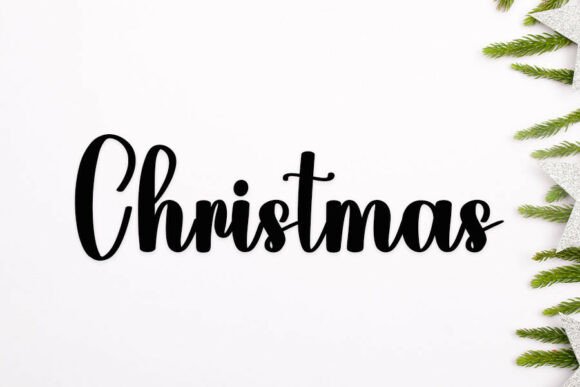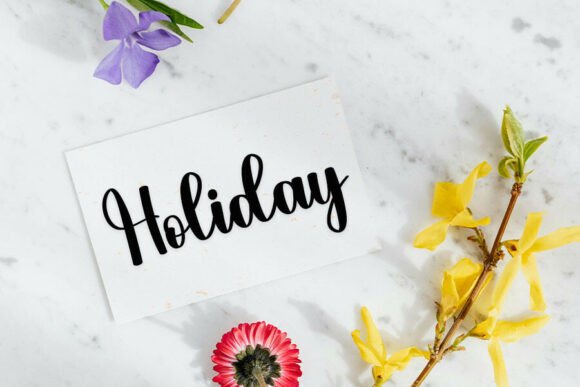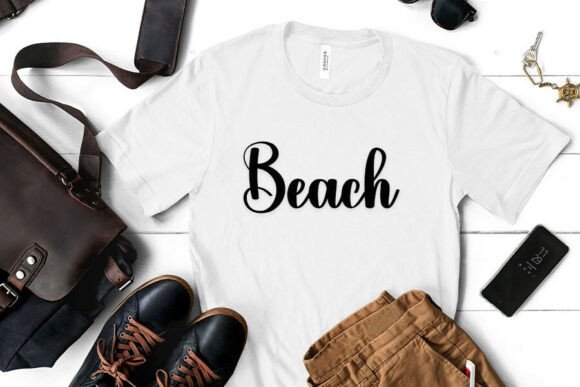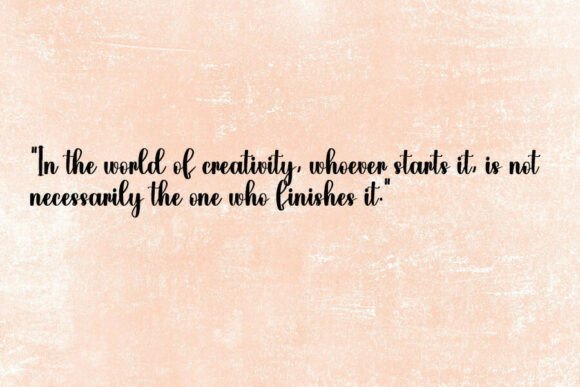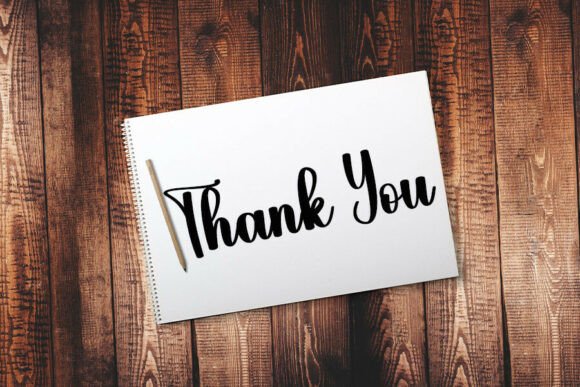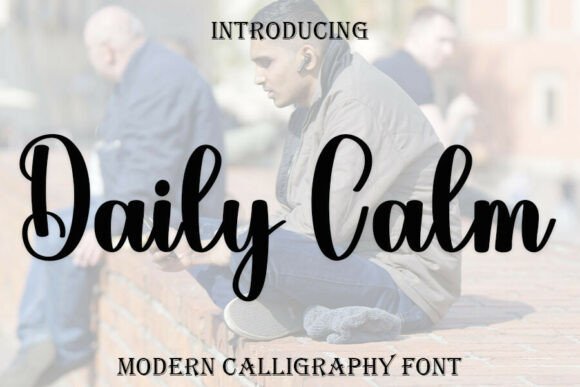
Introducing Daily Calm Font: Elevate Your Design with Elegant Calligraphy
In the world of typography, few fonts manage to strike a balance between traditional elegance and modern flair. Daily Calm, a beautiful high-contrast calligraphy font, is one such exceptional find. This stunning font combines the sophistication of classic script with a lively, upbeat rhythm, making it an ideal choice for designers and crafters looking to infuse their projects with a touch of artisanal charm.
The Essence of Daily Calm
Daily Calm is more than just a font; it’s a design statement. Its high-contrast calligraphy style gives it a distinctive look that is both elegant and eye-catching. The font’s traditional script elements evoke a sense of timelessness and sophistication, while its contemporary rhythm adds a fresh, modern twist. This blend of old and new makes Daily Calm versatile and suitable for a wide range of design applications.
Ideal Applications for Daily Calm
Given its unique characteristics, Daily Calm is perfectly suited for projects that require a blend of elegance, warmth, and inspiration. Some of the ideal applications for this beautiful font include:
- Holistic Branding: For businesses focused on wellness, yoga, meditation, or organic products, Daily Calm offers a typographic solution that resonates with their brand ethos.
- Inspirational Quotes: The font’s uplifting and elegant style makes it perfect for presenting motivational quotes on social media, posters, or digital platforms.
- Social Media Headers: Stand out on social media with Daily Calm used in headers or titles. Its contemporary rhythm ensures your content grabs attention.
- Lifestyle Product Packaging: For boutique skincare lines, artisanal food products, or any lifestyle goods that emphasize natural, organic qualities, Daily Calm adds a sophisticated touch to packaging designs.
Designing with Daily Calm
When designing for projects such as a meditation app, a yoga studio, or a boutique skincare line, the typography plays a crucial role in setting the tone and conveying the brand’s message. Daily Calm excels in these scenarios by adding a layer of artisanal grace and organic warmth to your typography. Here are some tips for making the most of Daily Calm in your designs:
- Pair with Simplicity: Let Daily Calm be the focal point by pairing it with simple, clean fonts for body text or supplementary information.
- Play with Colors: Enhance the font’s elegance with a thoughtful color palette. Earth tones, soft pastels, or rich jewel tones can complement Daily Calm beautifully.
- Experiment with Ligatures: Take advantage of the font’s ligatures and swashes to add a personal touch to your designs.
Why Designers and Crafters Love Daily Calm
Designers and crafters appreciate fonts that offer both aesthetic appeal and versatility. Daily Calm checks all the boxes:
- Unique Aesthetic: Its high-contrast calligraphy style sets it apart from more common fonts.
- Versatility: Suitable for digital and print projects, offering flexibility across various mediums.
- Emotional Connection: The warmth and elegance of Daily Calm help create an emotional connection with the audience, which is invaluable for brands.
Daily Calm is a beautiful addition to any designer’s toolkit. Its unique blend of traditional elegance and modern rhythm makes it perfect for a wide range of projects, from holistic branding to lifestyle product packaging. By incorporating Daily Calm into your designs, you’re not just choosing a font; you’re embracing a typographic experience that can elevate your work and resonate with your audience. Whether you’re a seasoned designer or a crafty DIY enthusiast, Daily Calm invites you to explore new creative horizons with its elegant calligraphy and inspiring aesthetic.